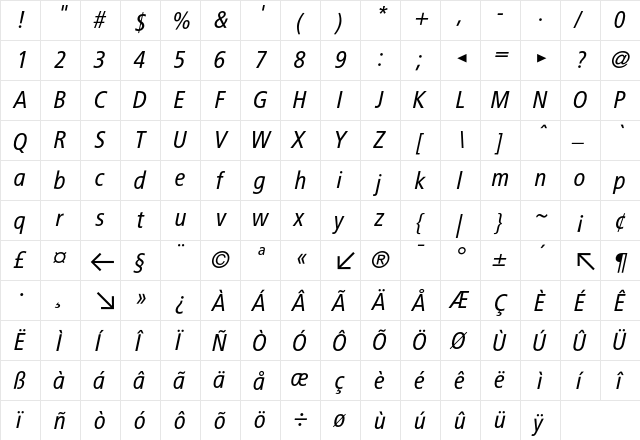
BVGNormalKursiv Regular
Design Context for BVGNormalKursiv Typeface
BVGNormalKursiv offers clean, dependable letterforms without strong stylistic allegiance, making it a practical choice for designers who need flexibility. The dynamic lean of this cut emphasises speed and emphasis in any layout.
Pro Tip: Use BVGNormalKursiv for emphasis, pull quotes, and subheadings where its slanted energy can add rhythm to the layout.